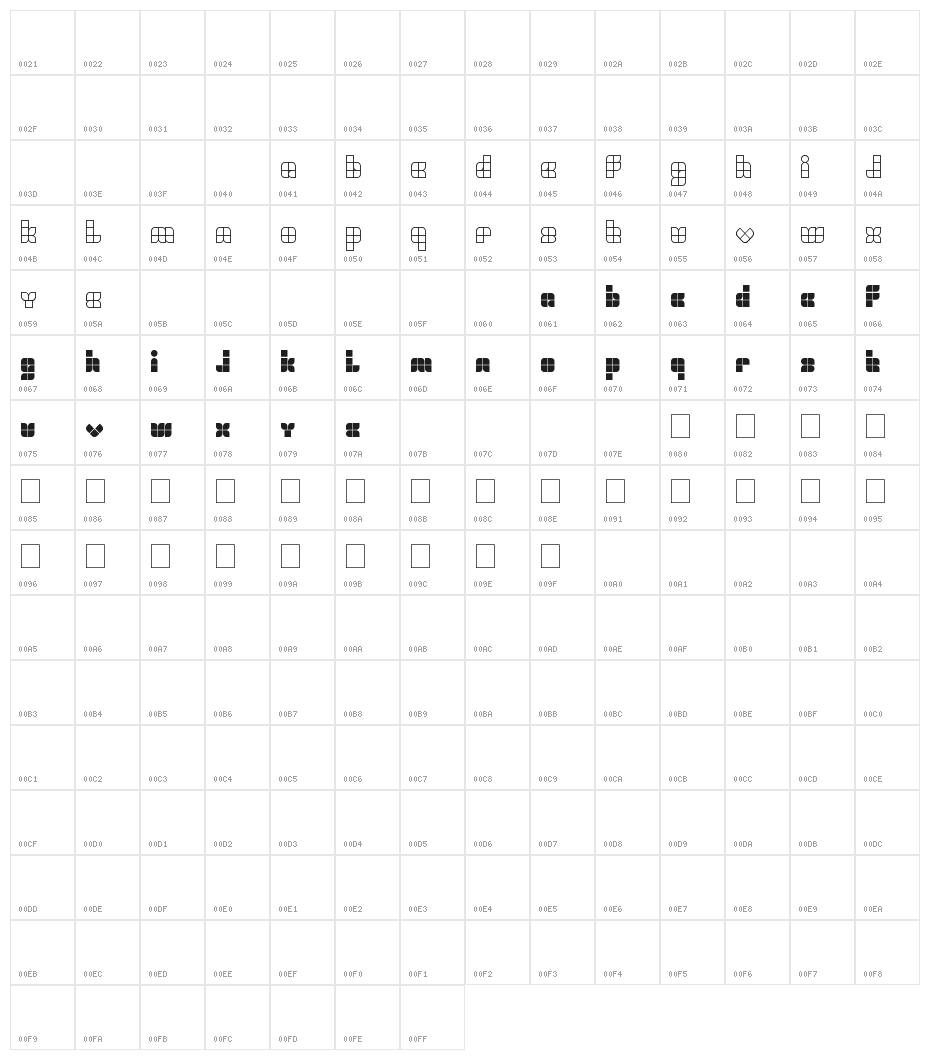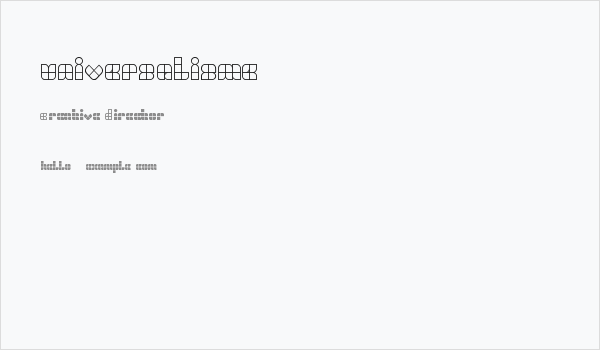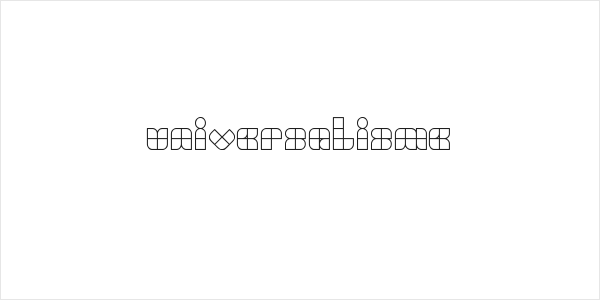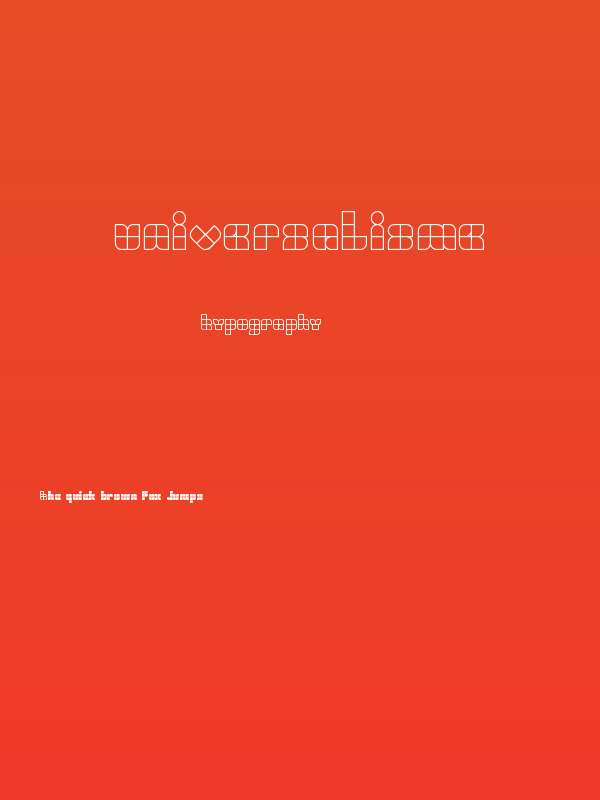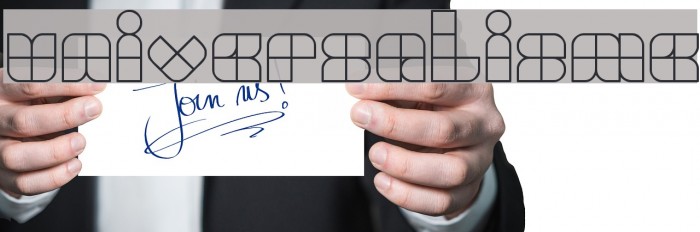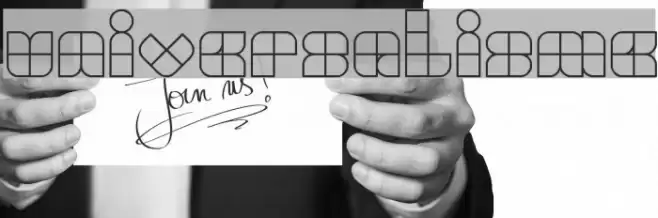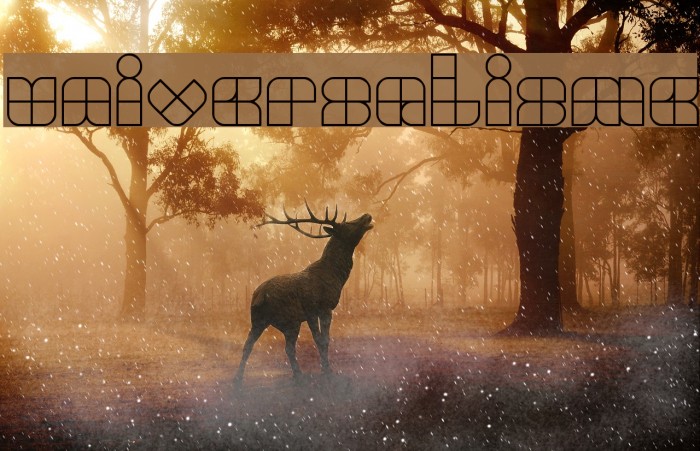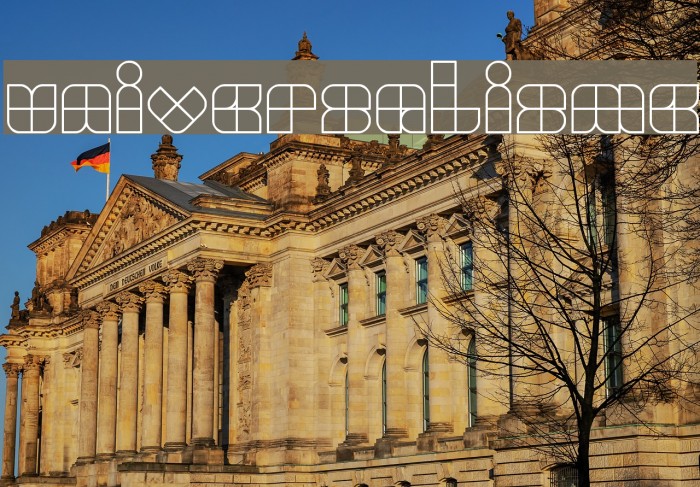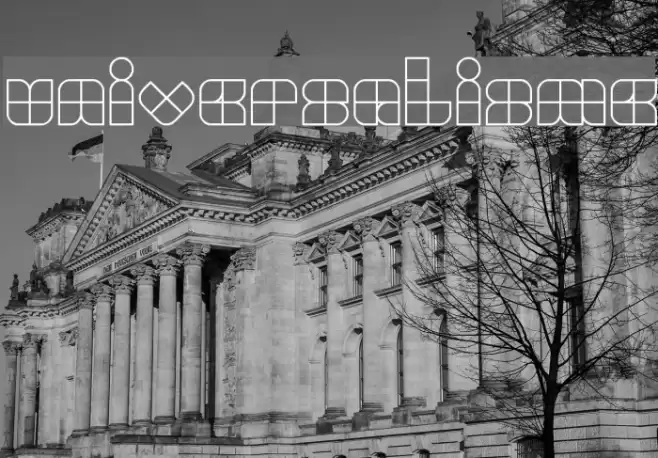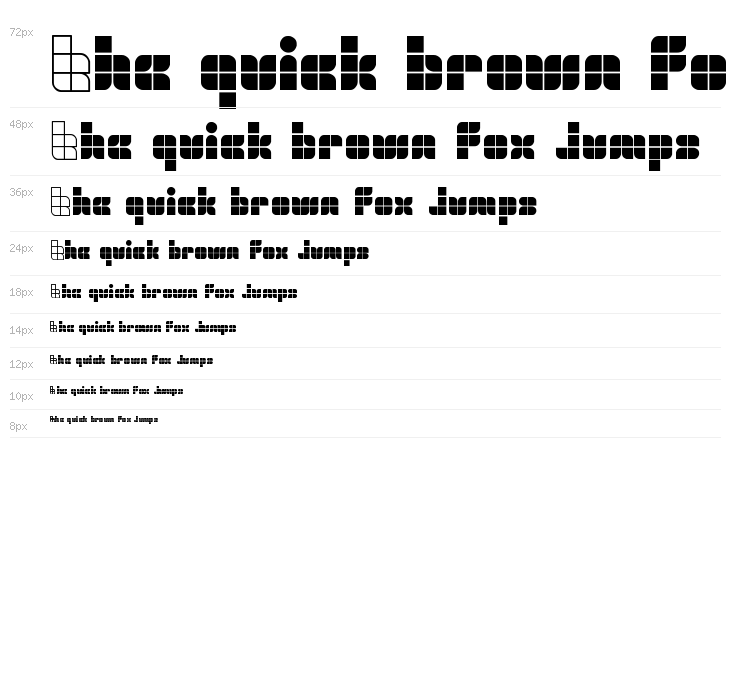
UNIVERSALISME Font
UNIVERSALISME Description
This font features a geometric, modular design with a distinct grid-like structure. Each character is composed of a series of interconnected squares and circles, creating a bold and modern appearance. The font is highly stylized, with a strong emphasis on symmetry and uniformity. The uppercase and lowercase letters share similar design elements, maintaining consistency throughout the typeface. The font's unique style makes it stand out, offering a contemporary and artistic feel. It is particularly suitable for creative projects that require a distinctive and eye-catching typeface.
| Proposed Projects | Ideal for branding, posters, album covers, and modern art projects. |